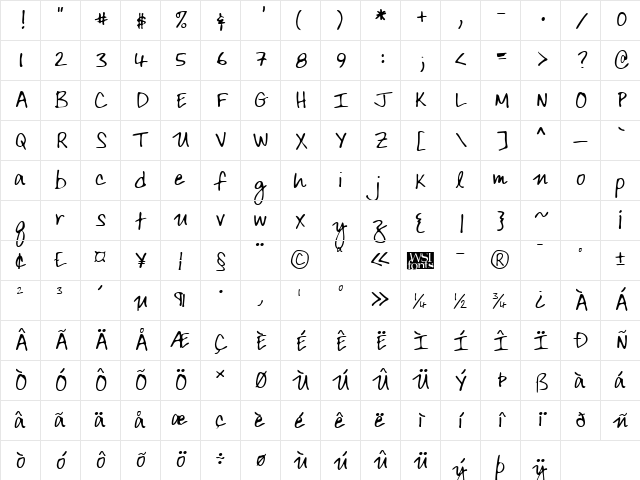
Ardley's Regular Free Font
Ardley's Regular
Design Context for Ardley's
Ardley's is a composed and adaptable typeface that performs quietly and consistently across a wide range of design contexts.